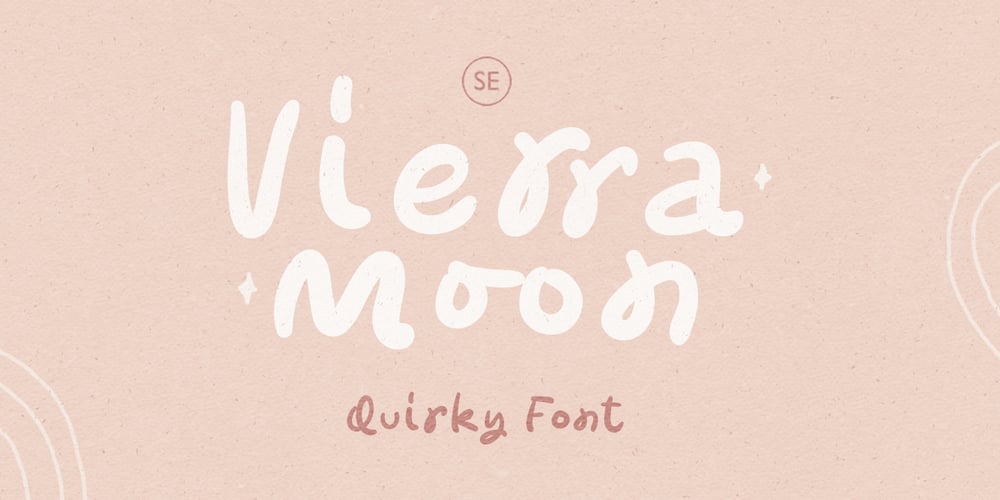
Vierra Moon Font Family was designed by Sarid Ezra and published by Sarid Ezra. Vierra Moon contains 1 styles and family package options. Vierra Moon is a quirky handwritten font that will make your design more cheerful! You can use this font for your brand, your cover book, kids event, or even your quote. This font also including double ligatures that will make this font more handy. This font also support multilingual.